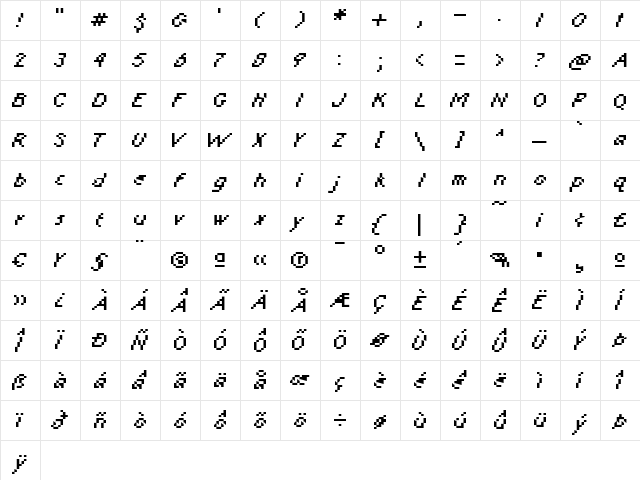
KareSixDots Italic
Design Context for KareSixDots Typeface
KareSixDots celebrates the constraints of early digital type, turning pixel geometry into a distinctive and immediately recognisable style. The dynamic lean of this cut emphasises speed and emphasis in any layout.
Well-suited to indie game interfaces, retro computing aesthetics, and pixel art-adjacent design work.
Pro Tip: Use KareSixDots at sizes that align with its pixel grid for the sharpest rendering — scaling to non-integer multiples can introduce unwanted blur.